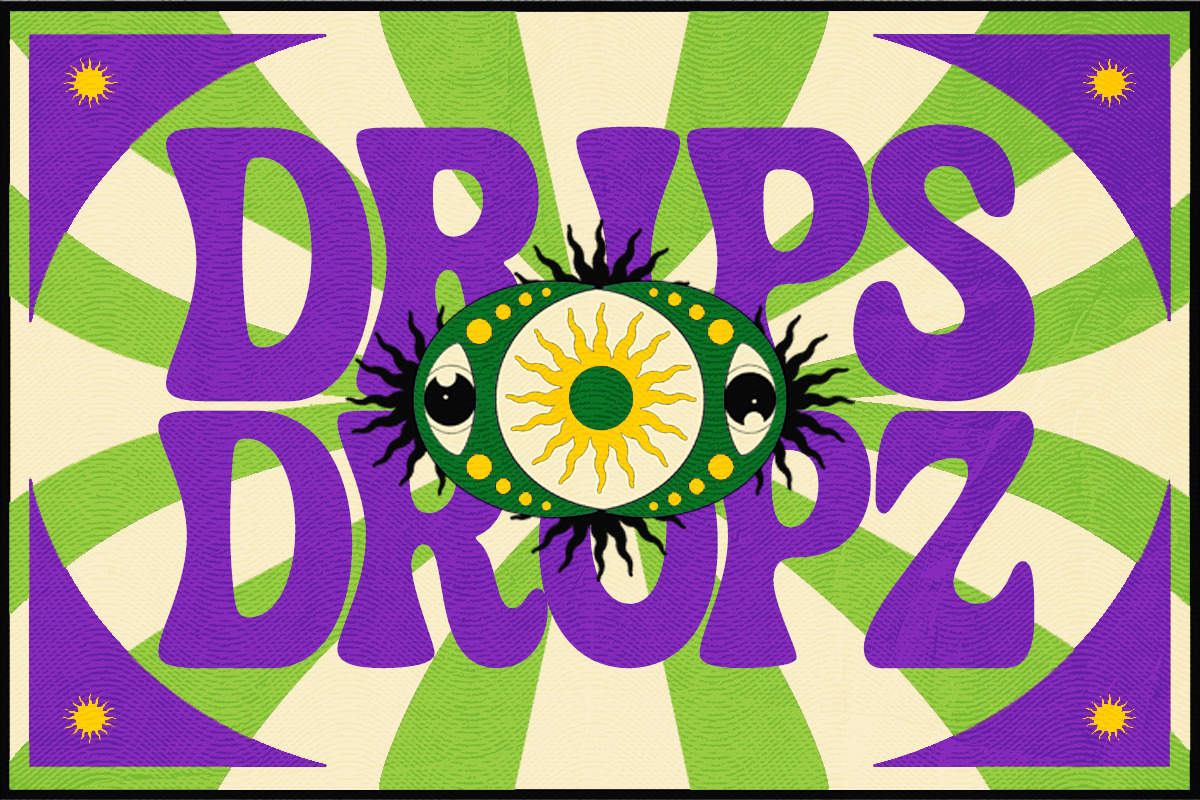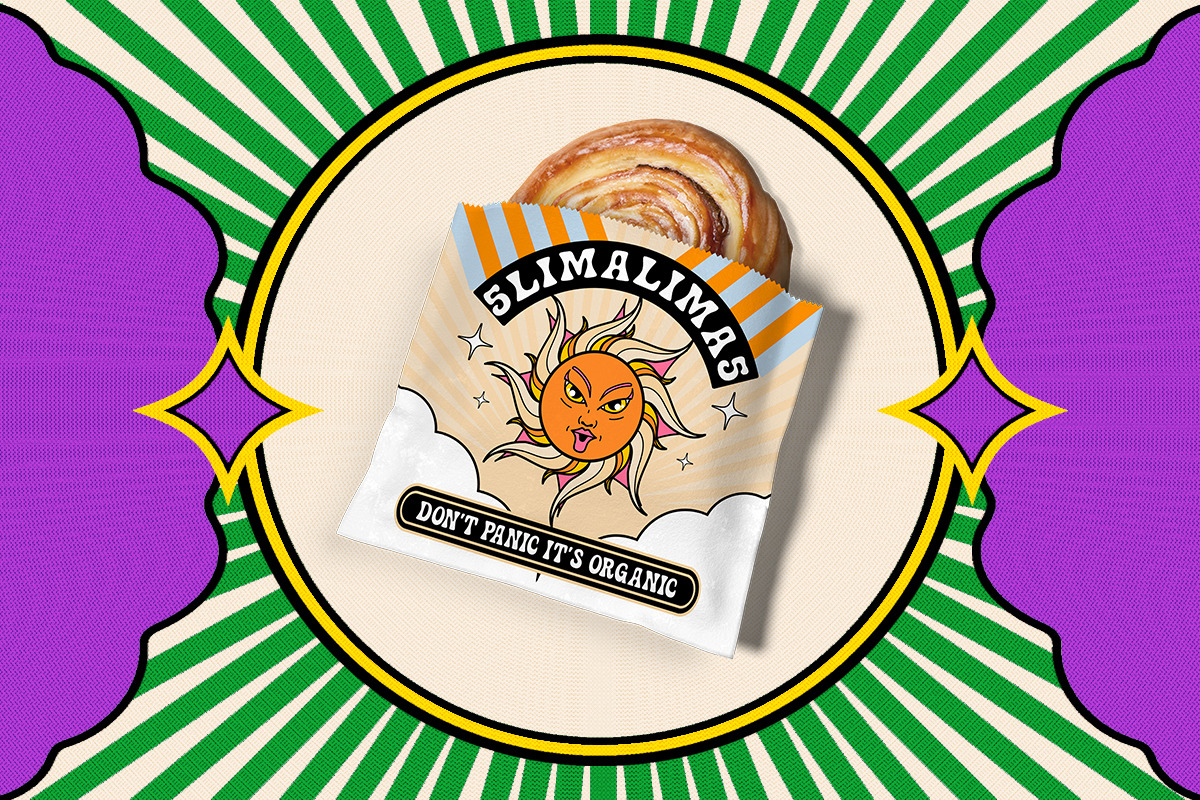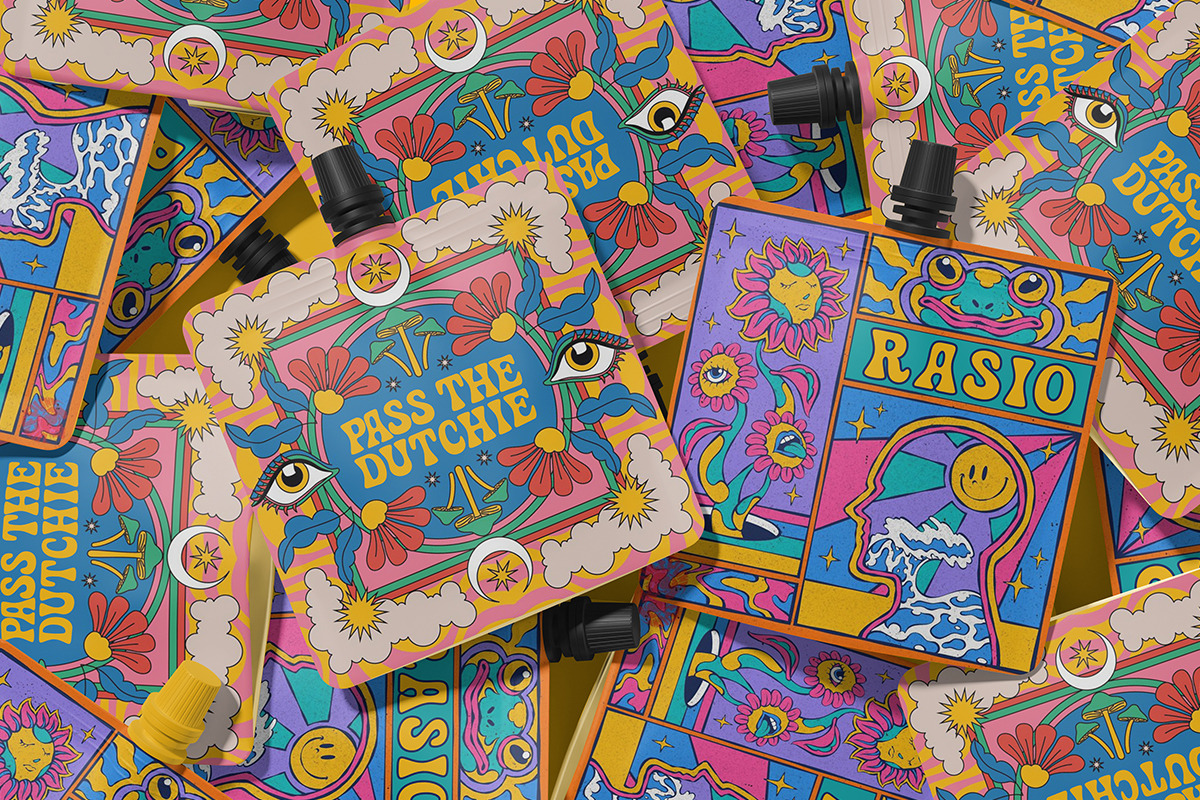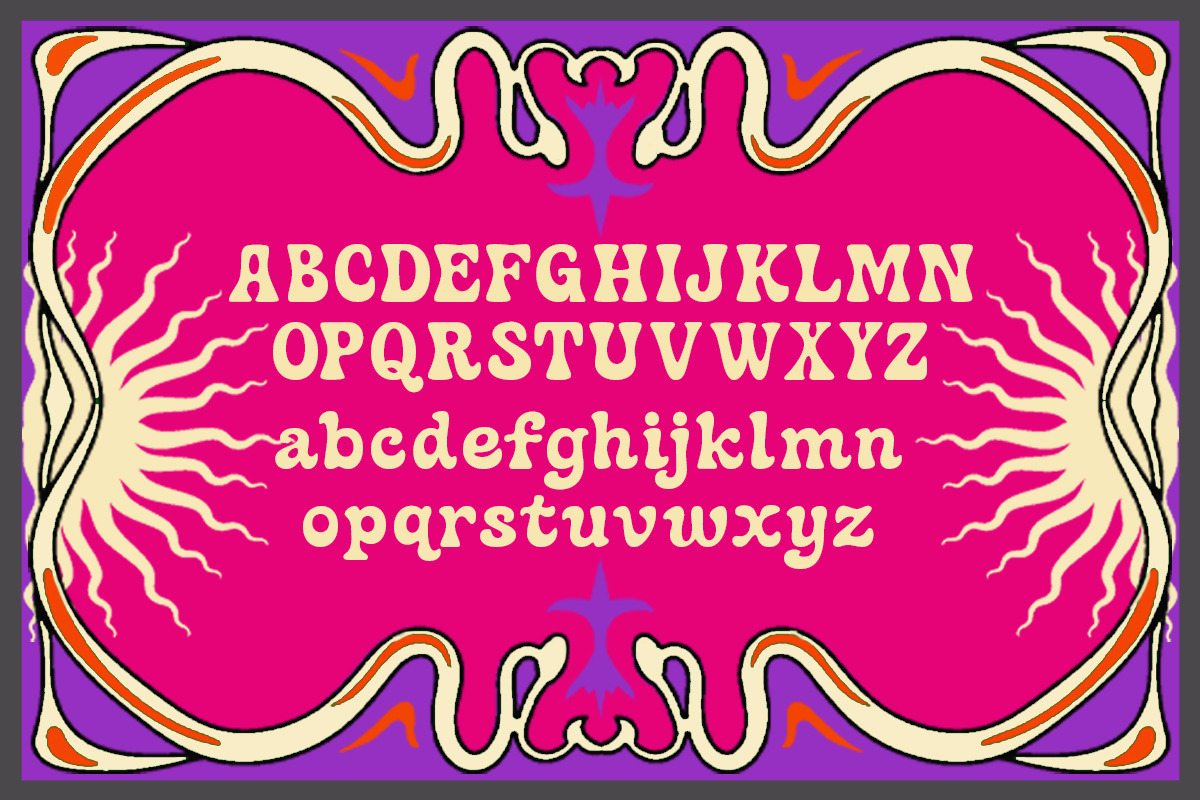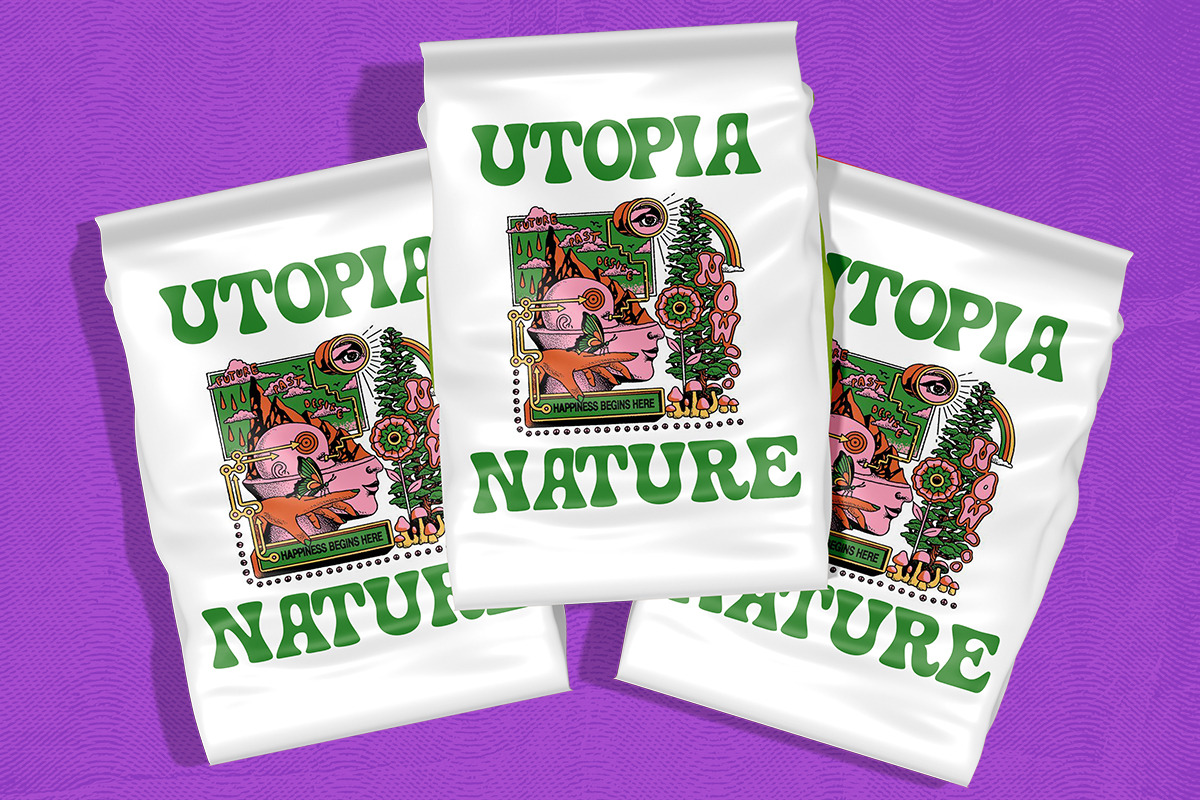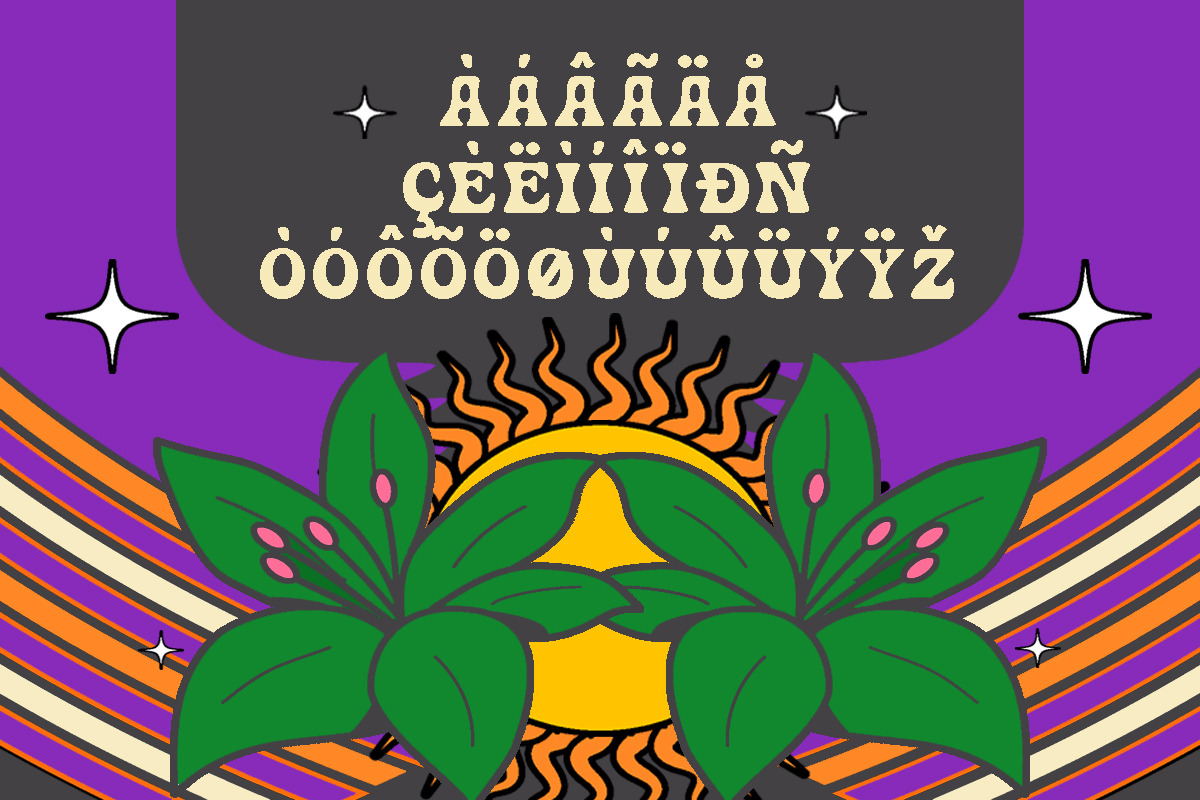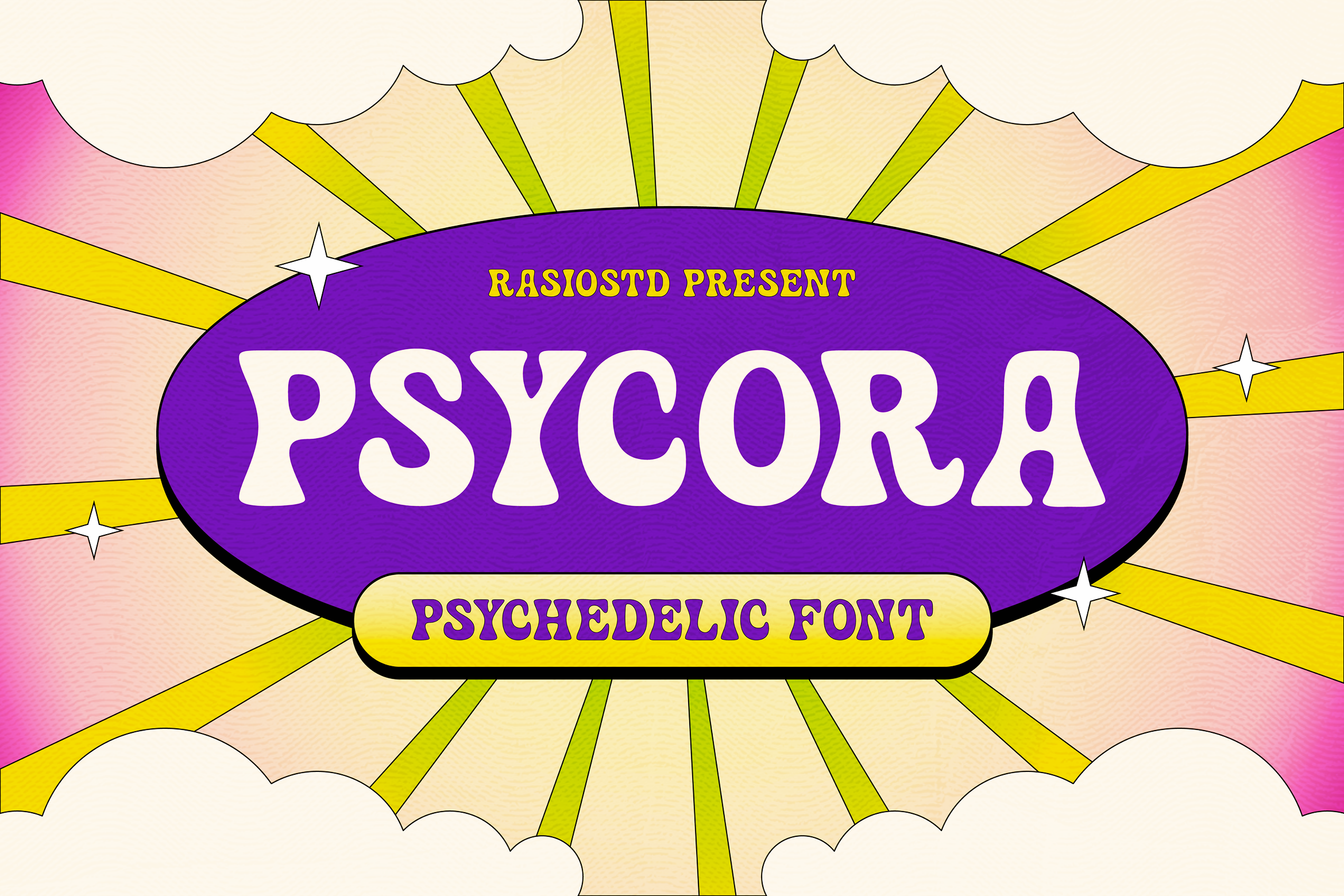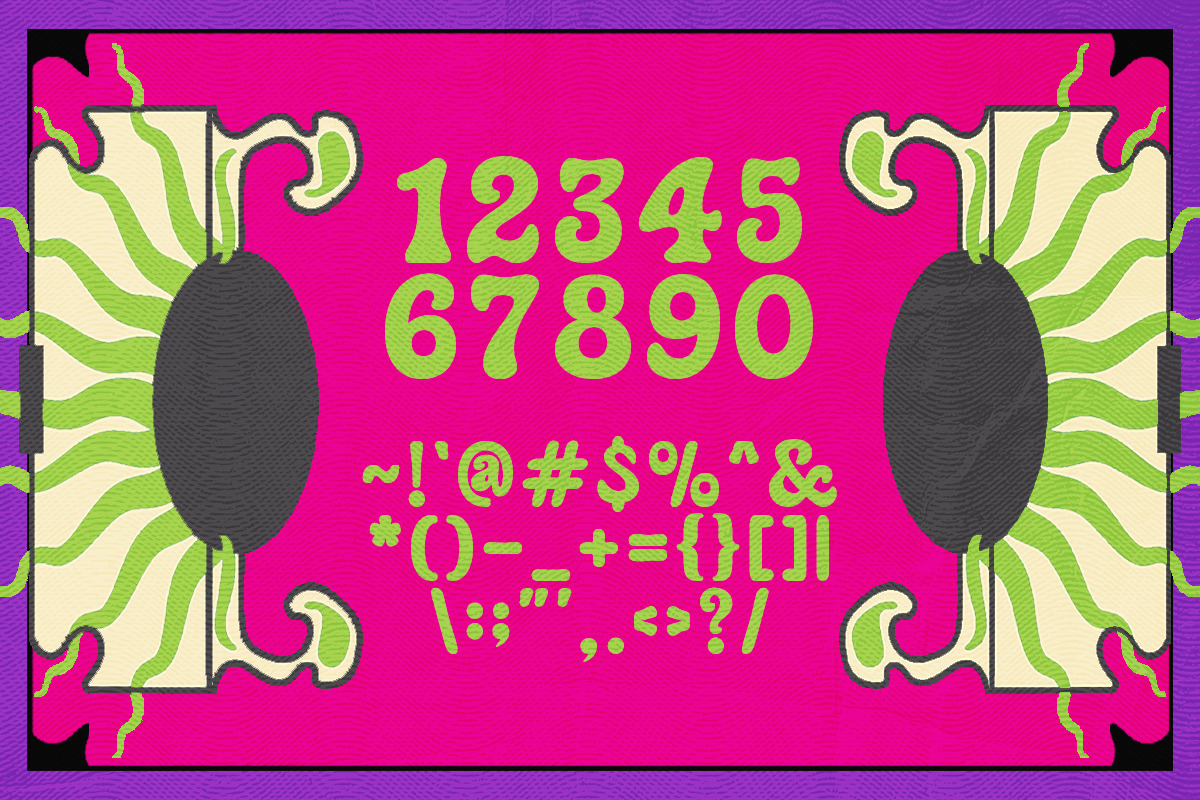
Psycora Psychedelic Font
Psycora Psychedelic Display Font captures the vibrant energy of 70s art and music culture through bold, wavy letterforms and fluid, organic shapes. Each character flows with groovy rhythm and expressive movement, making it perfect for eye-catching visuals and experimental typography. Designed with playful proportions and retro charm, Psycora brings a nostalgic yet artistic twist to modern creative projects.
Relevance and Use Cases is perfect for psychedelic posters, retro album covers, creative branding, funky packaging, festival design, social media artwork, and artistic projects inspired by 70s pop culture and colorful visual expression.
- Retro psychedelic display style with bold, fluid letterforms
- Soft, bulbous shapes with exaggerated curves and playful distortion
- Organic stroke flow creating a wavy, hypnotic visual rhythm
- High-impact thickness contrast optimized for large, eye-catching headlines
- Decorative vintage vibe inspired by 60s–70s poster typography and pop culture visuals
- Retro music posters, festival visuals, and concert branding
- Vintage-inspired packaging and bold product labels
- Psychedelic artwork, album covers, and creative merchandise
- Eye-catching social media graphics with expressive typography
- Statement headlines for posters, flyers, and artistic layouts
Turn up the groove and make your visuals stand out with Psycora